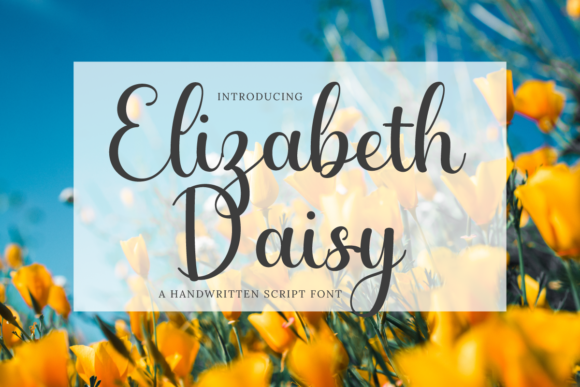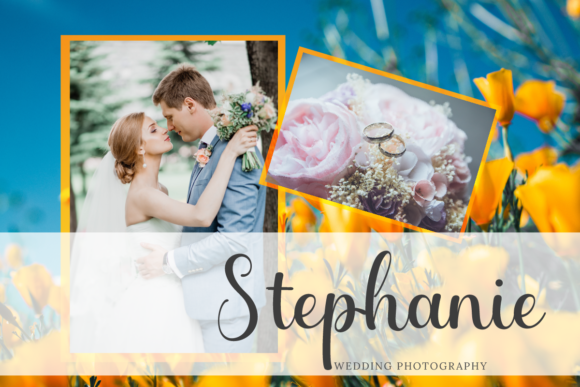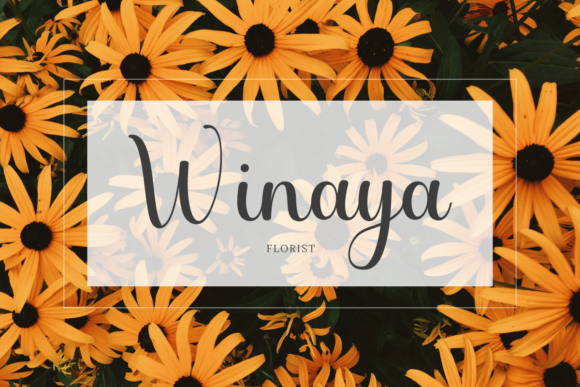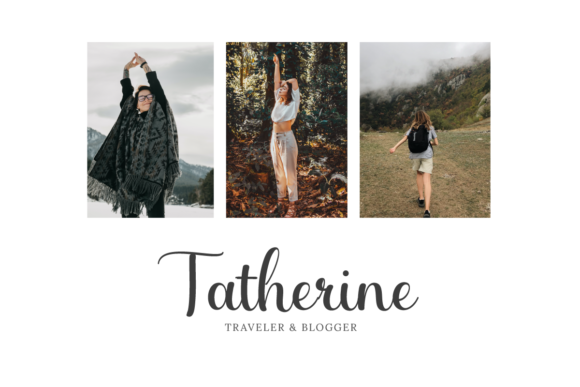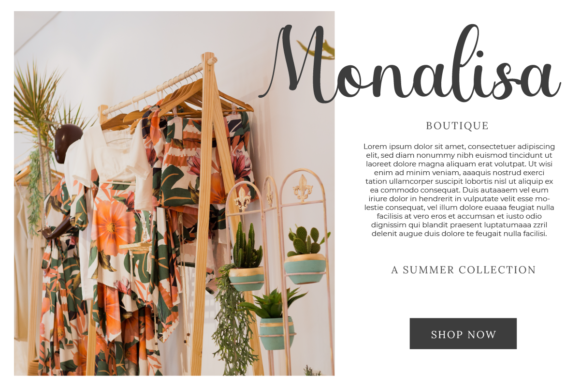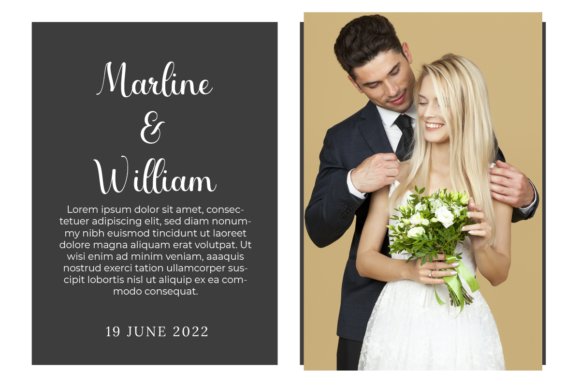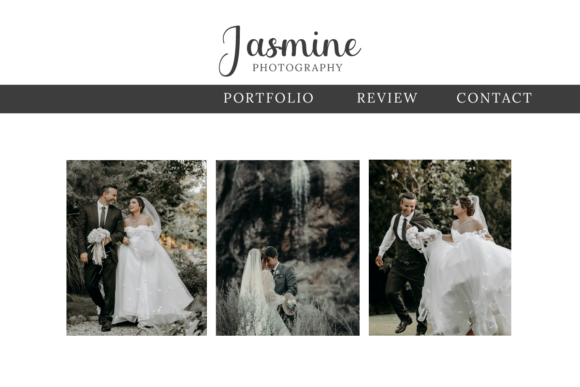
Discover the Perfect Script Font for Your Next Creative Project
Have you ever been working on a design project and suddenly, the perfect font just clicks? That’s exactly what happened when designers discovered the Elizabeth Daisy Font. This delicate script font is a breath of fresh air, bringing a touch of elegance and sophistication to any design.
With its smooth, flowing lines, the Elizabeth Daisy Font is perfect for creating beautiful wedding invitations, stunning stationery art, and eye-catching social media posts. Whether you’re a seasoned designer or just starting out, this font is sure to become your go-to choice for any project that requires a touch of whimsy and romance.
Key Features of Elizabeth Daisy Font
- Font Family: Elizabeth Daisy is a beautiful script font designed for various applications.
- Unique Characteristics: Features elegant, cursive script letters with subtle flair and flair at the ends of letters, giving it a romantic feel.
Designer Review: Elizabeth Daisy Font
The Elizabeth Daisy Font has a charming, vintage aesthetic that is sure to appeal to those looking for a classic, feminine feel. ✨ Its elegant script and ornate details make it perfect for wedding invitations, baby announcements, or any other occasion that calls for a touch of sophistication.
Here are some of the strengths of the font:
- ✨ Unique, handmade feel that sets it apart from more generic script fonts
- ✨ Beautiful, flowing lines that are perfect for creating a sense of movement and energy
- ✨ A wide range of languages supported, making it a great option for international projects
- ⚠️ The font may be difficult to read at smaller sizes, especially for those with vision impairments
- ⚠️ Some of the more ornate details may be lost when used in digital applications, such as on a screen
Overall, the Elizabeth Daisy Font is a beautiful and charming addition to any designer’s toolkit. While it may have some limitations, its unique aesthetic and elegant details make it a great choice for the right project.
For best results, use Elizabeth Daisy Font for headings and titles, and pair it with a clean sans-serif font for body text.
Elizabeth Daisy Font is perfect for:
Typography-based artwork and illustrations
For best results, use Elizabeth Daisy Font in conjunction with other elegant and whimsical design elements.